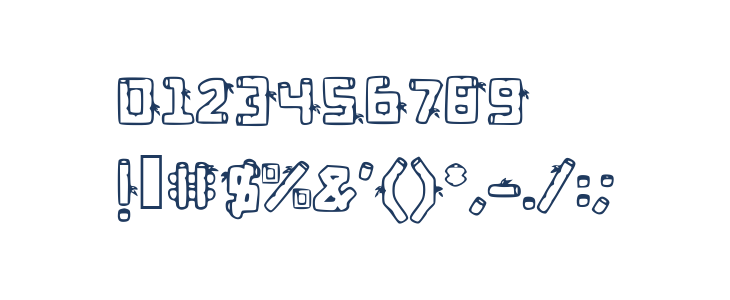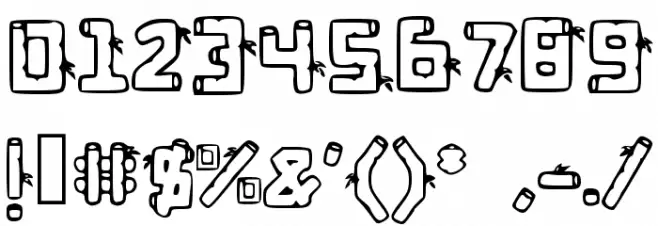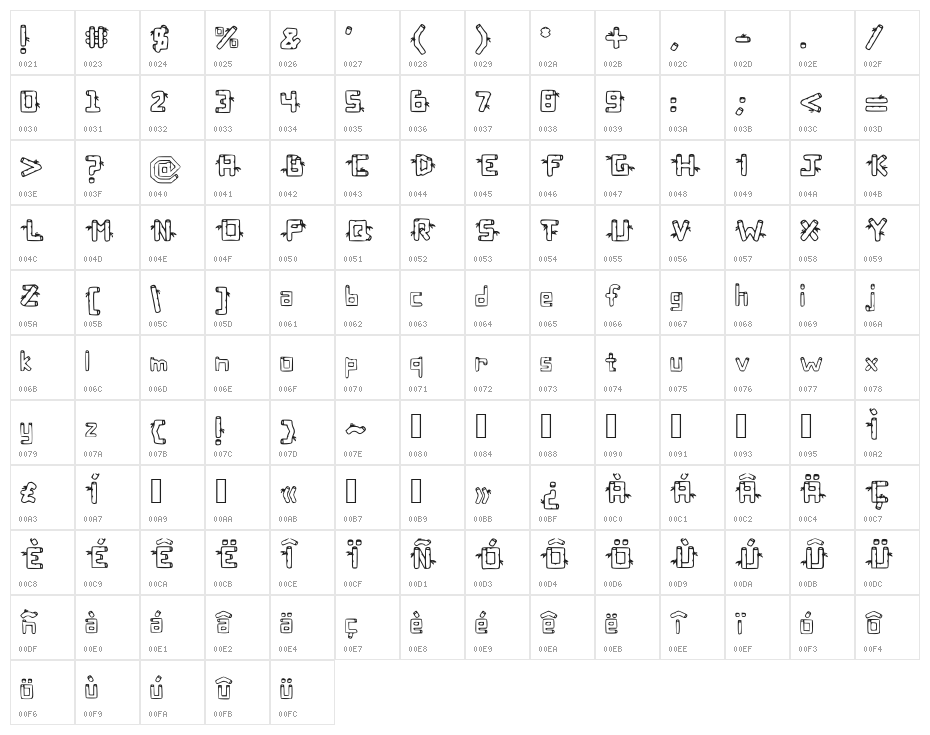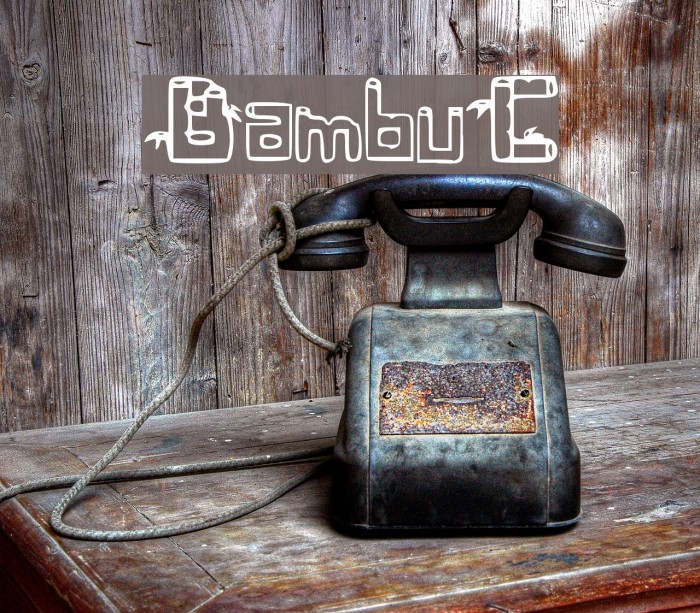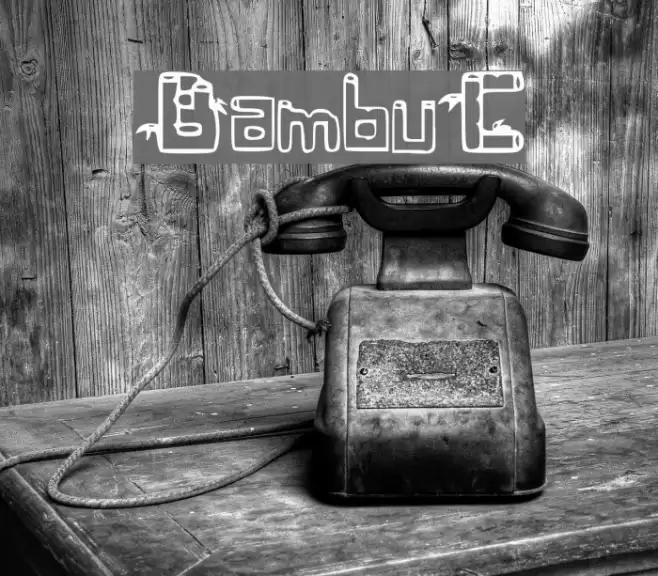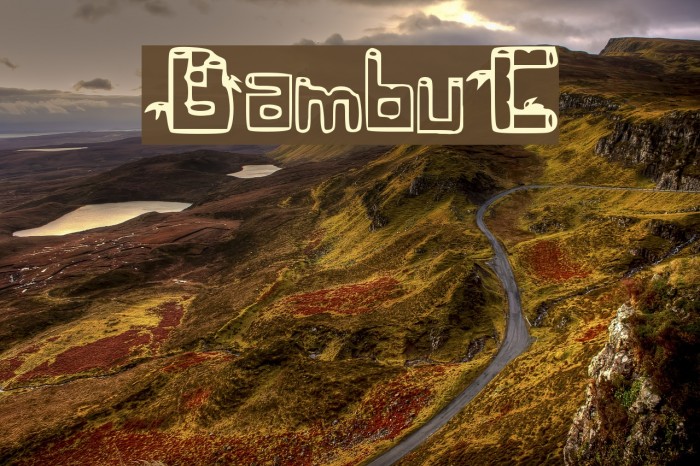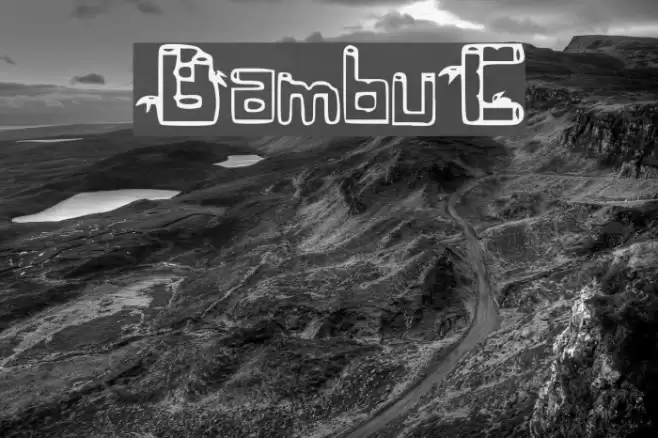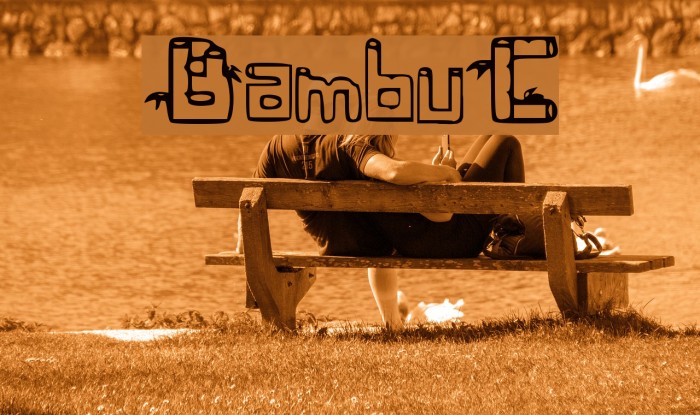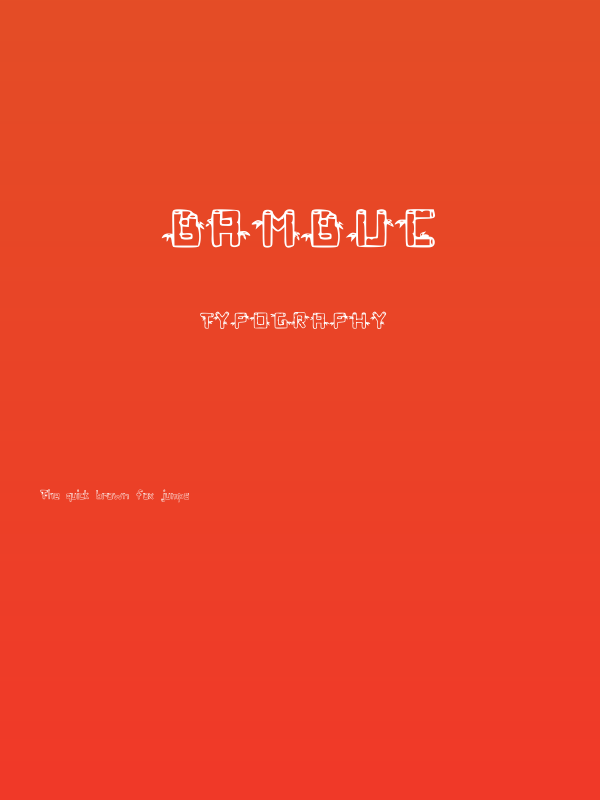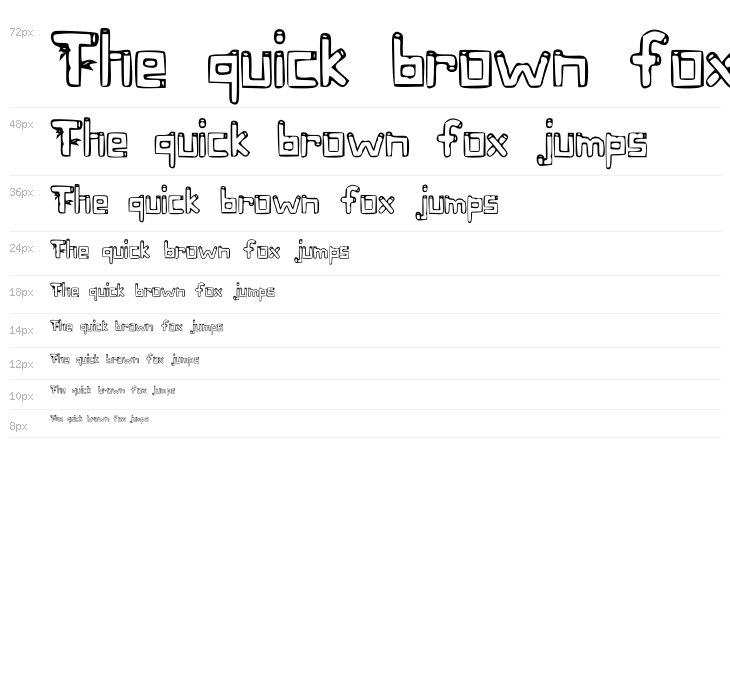
BambuC Font
BambuC Description
This font features a playful and decorative style, characterized by its bamboo-like elements integrated into each character. The letters are bold and outlined, with a unique design that incorporates small leaf-like accents, giving it an organic and natural feel. The uppercase and lowercase letters maintain a consistent theme, while the numbers and special characters follow suit with the same decorative approach. The overall appearance is whimsical and eye-catching, making it suitable for creative and themed projects.